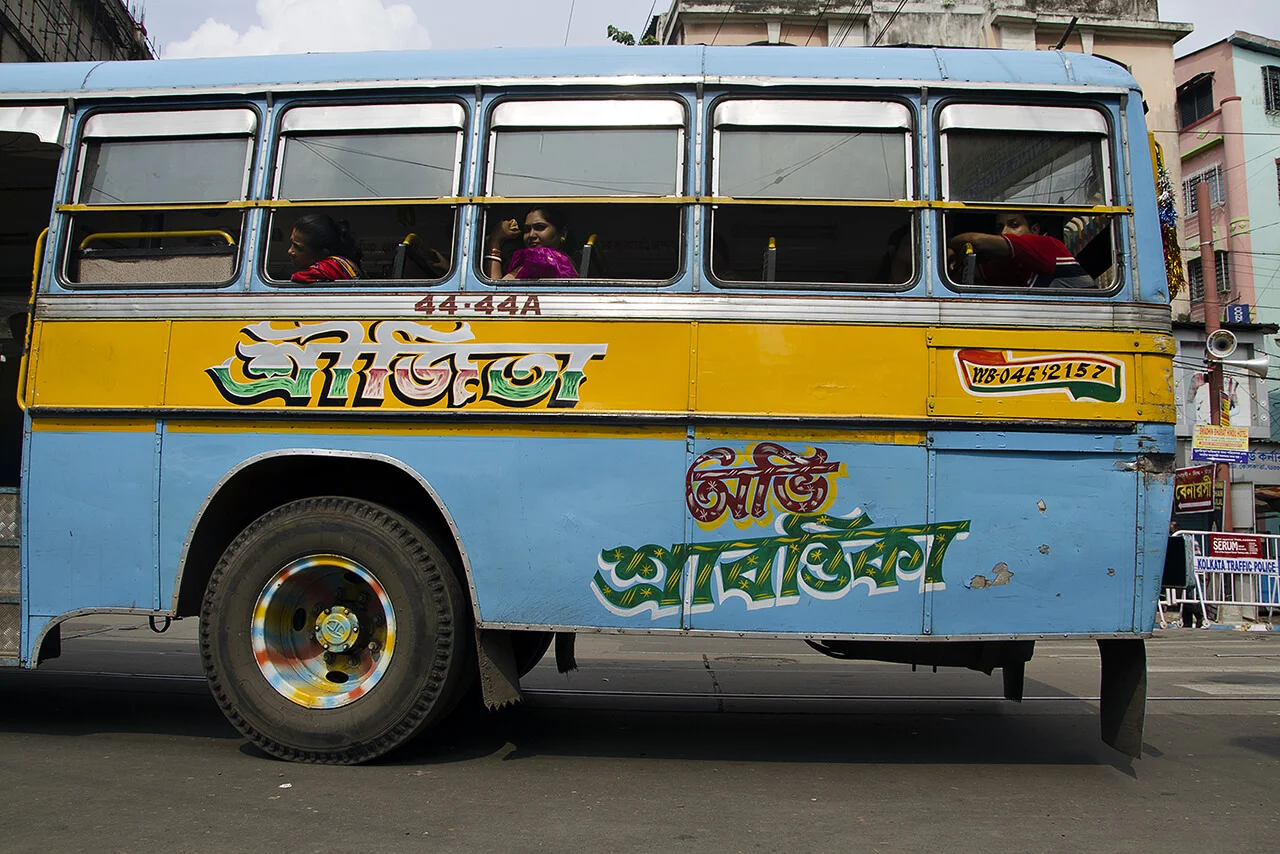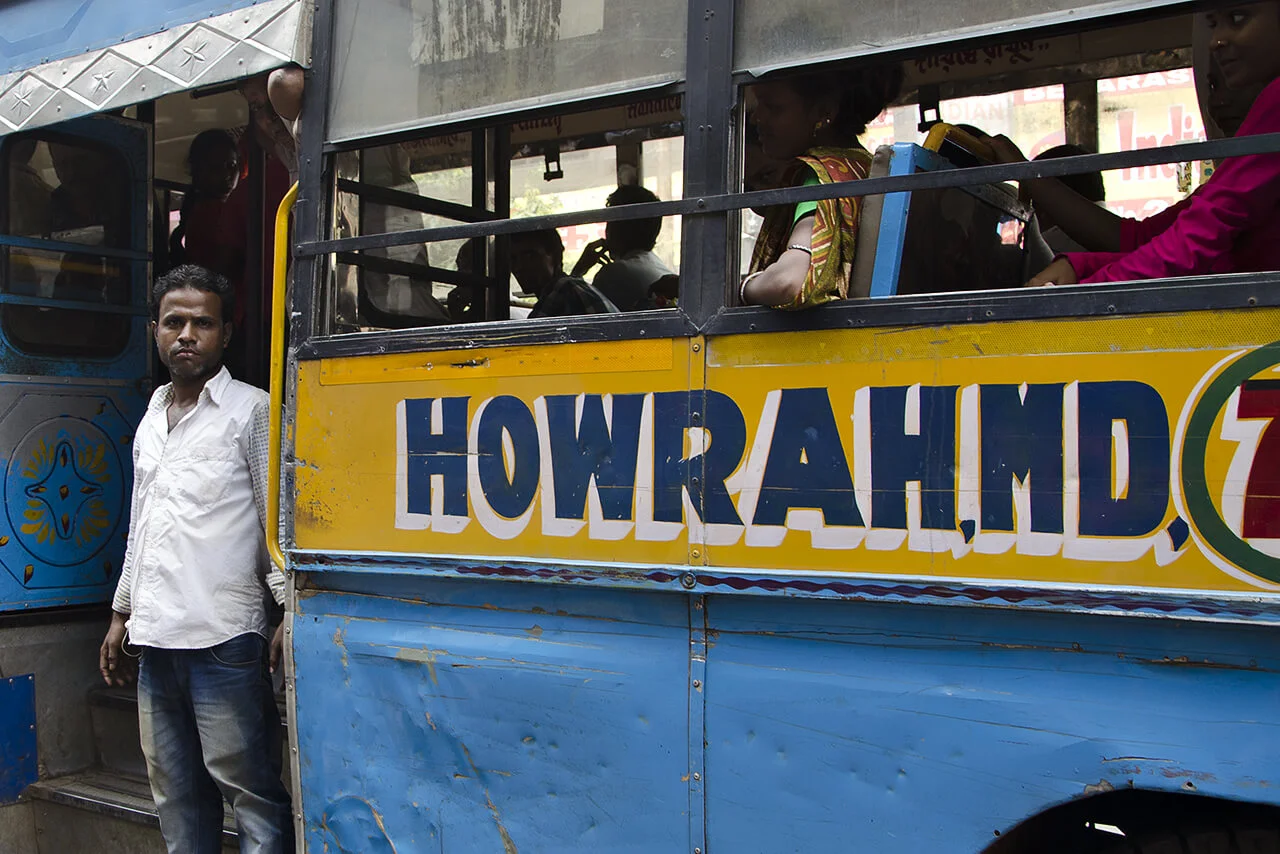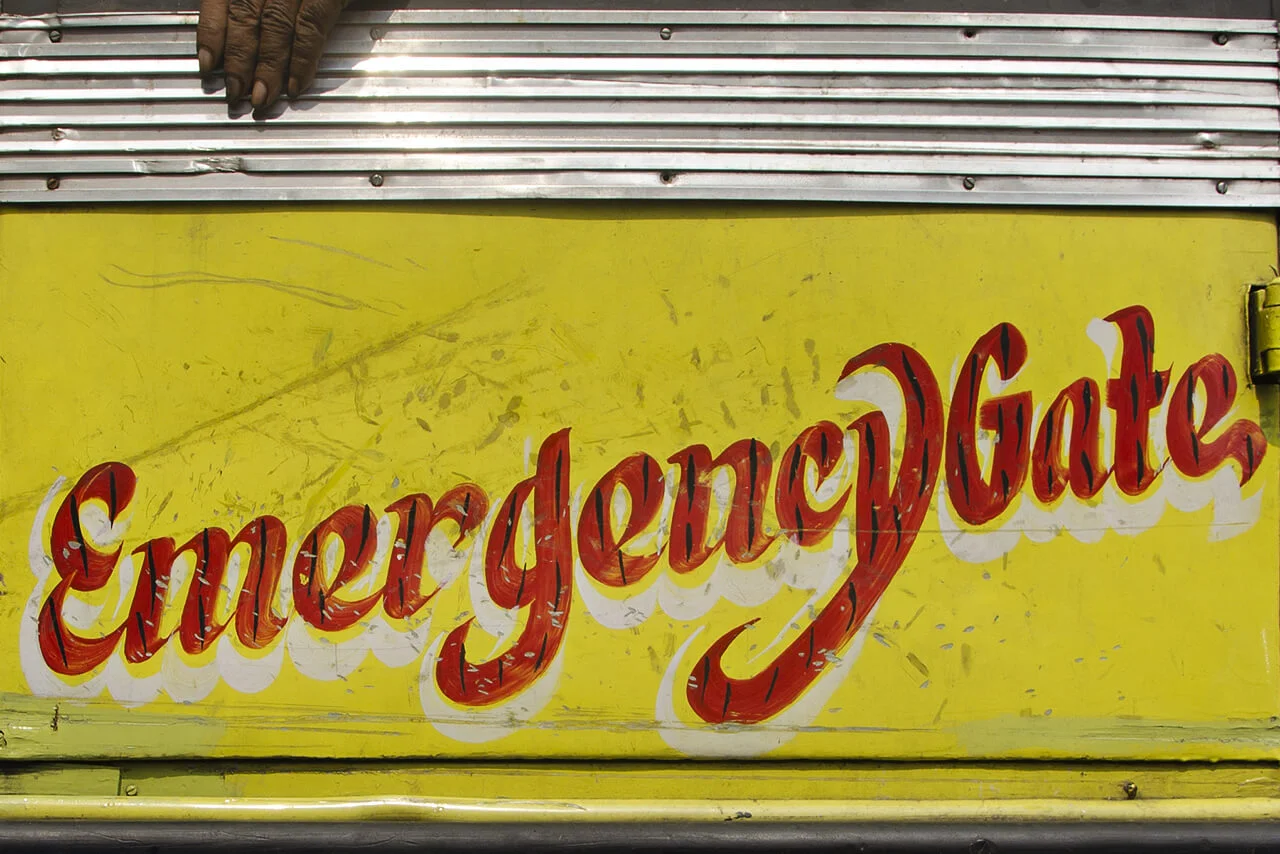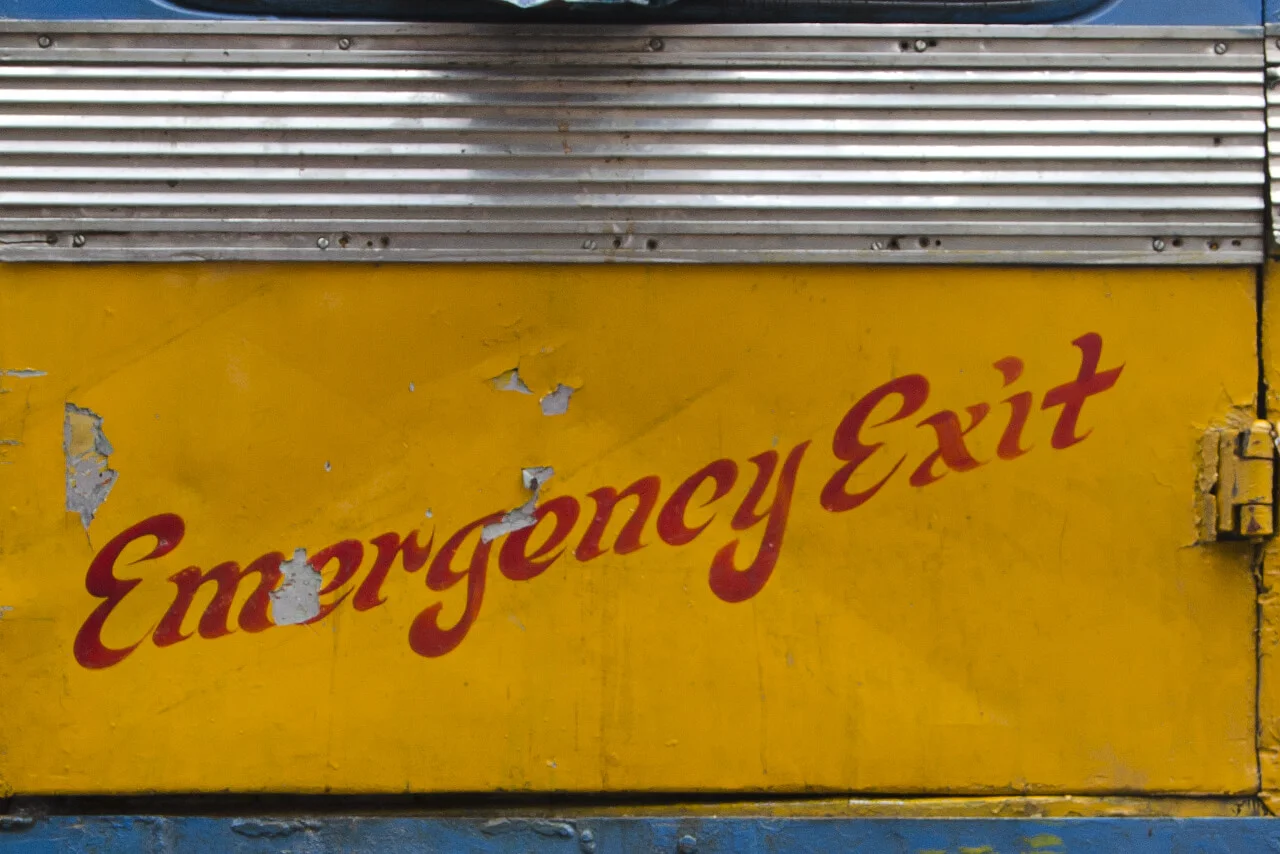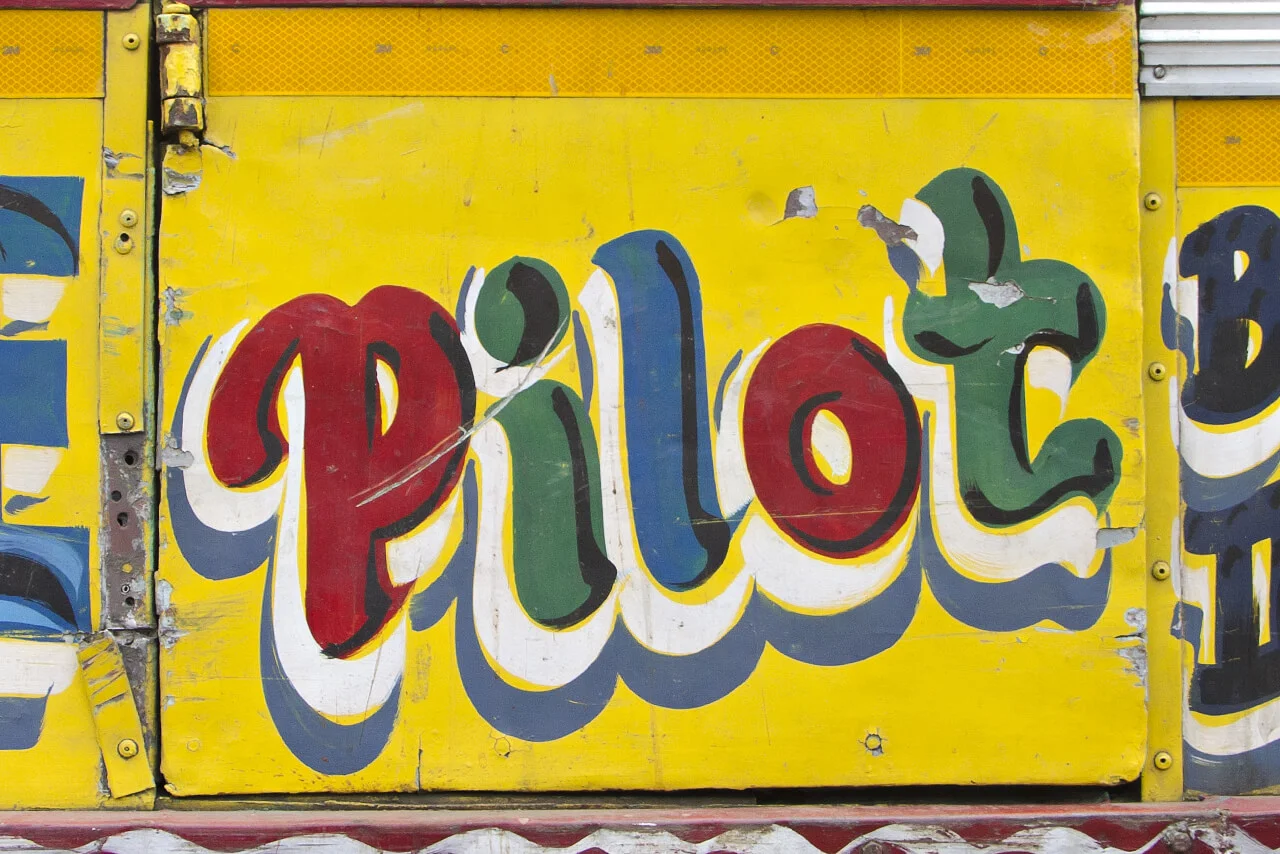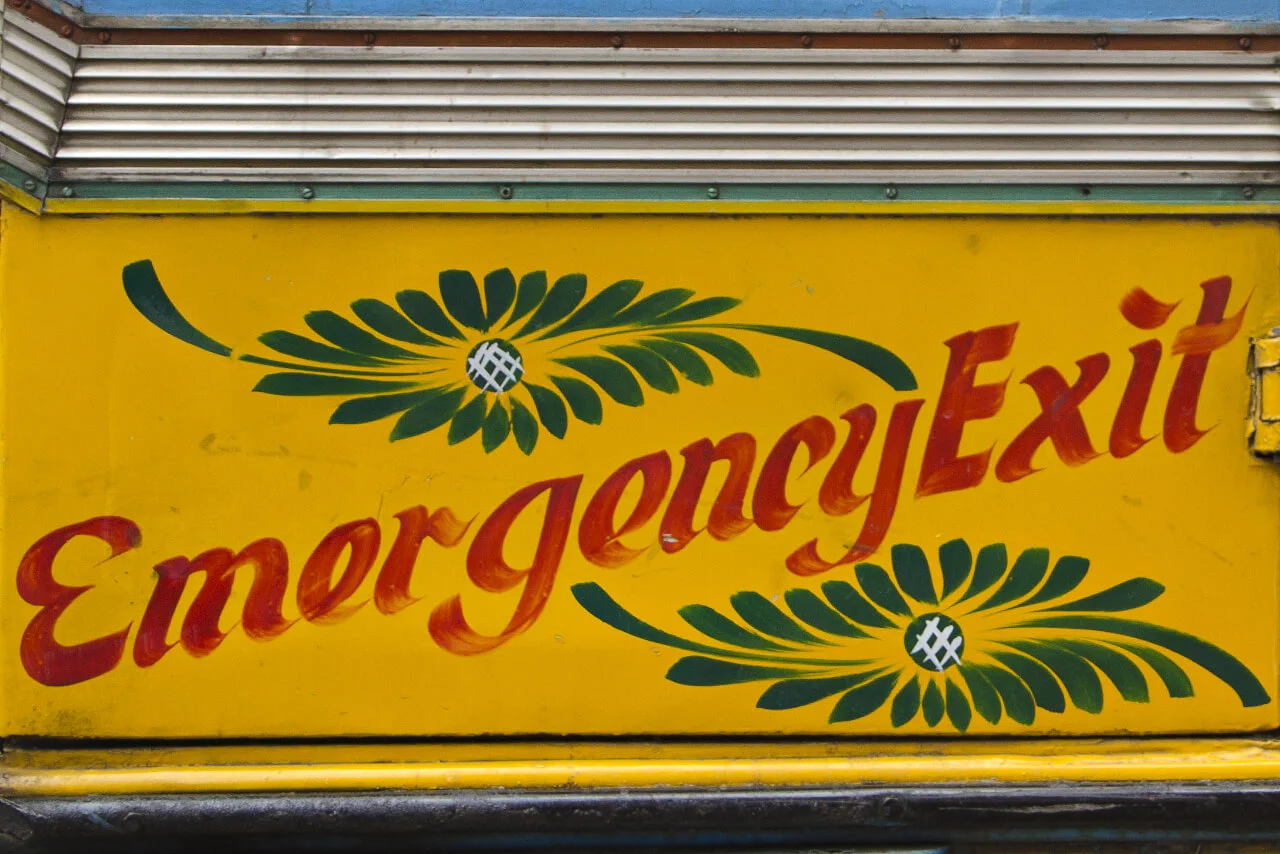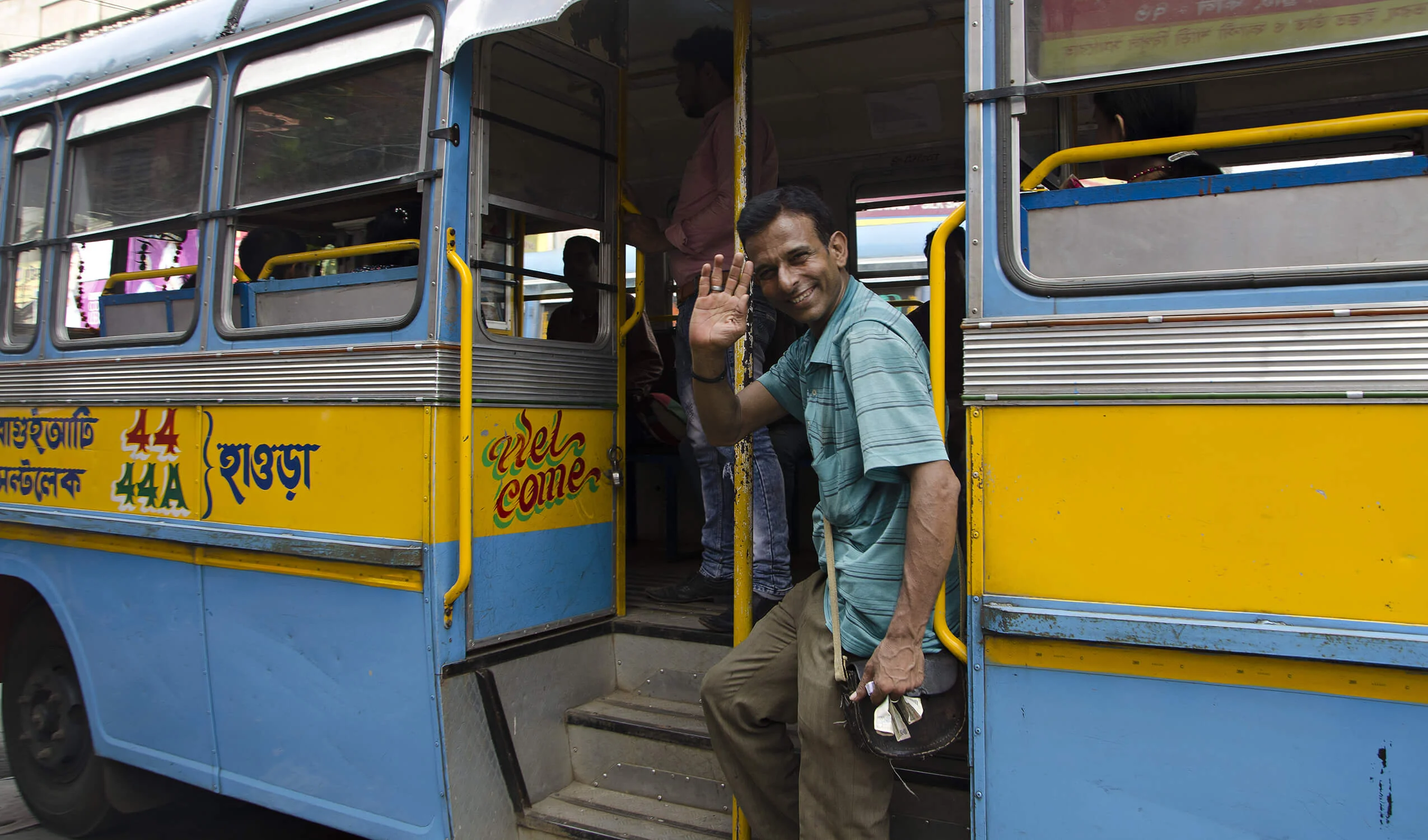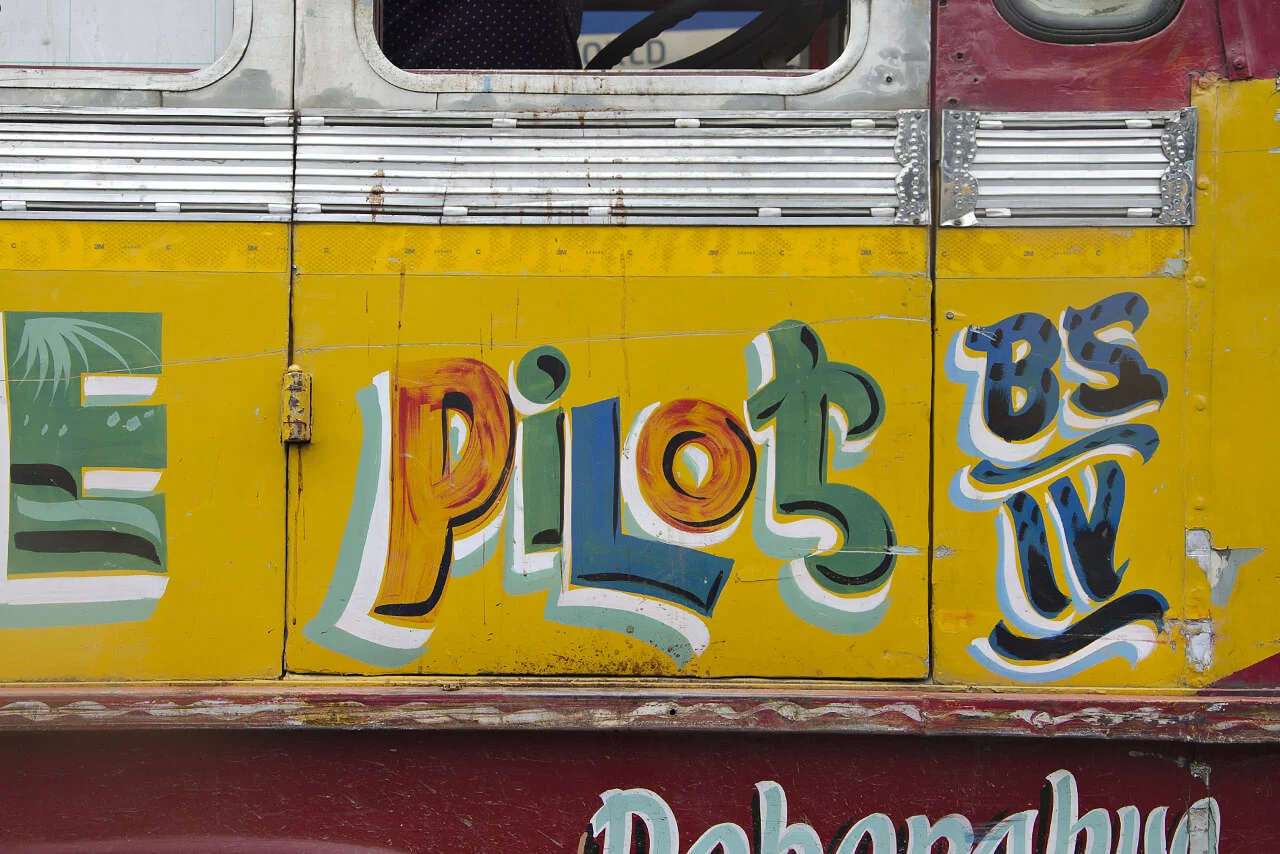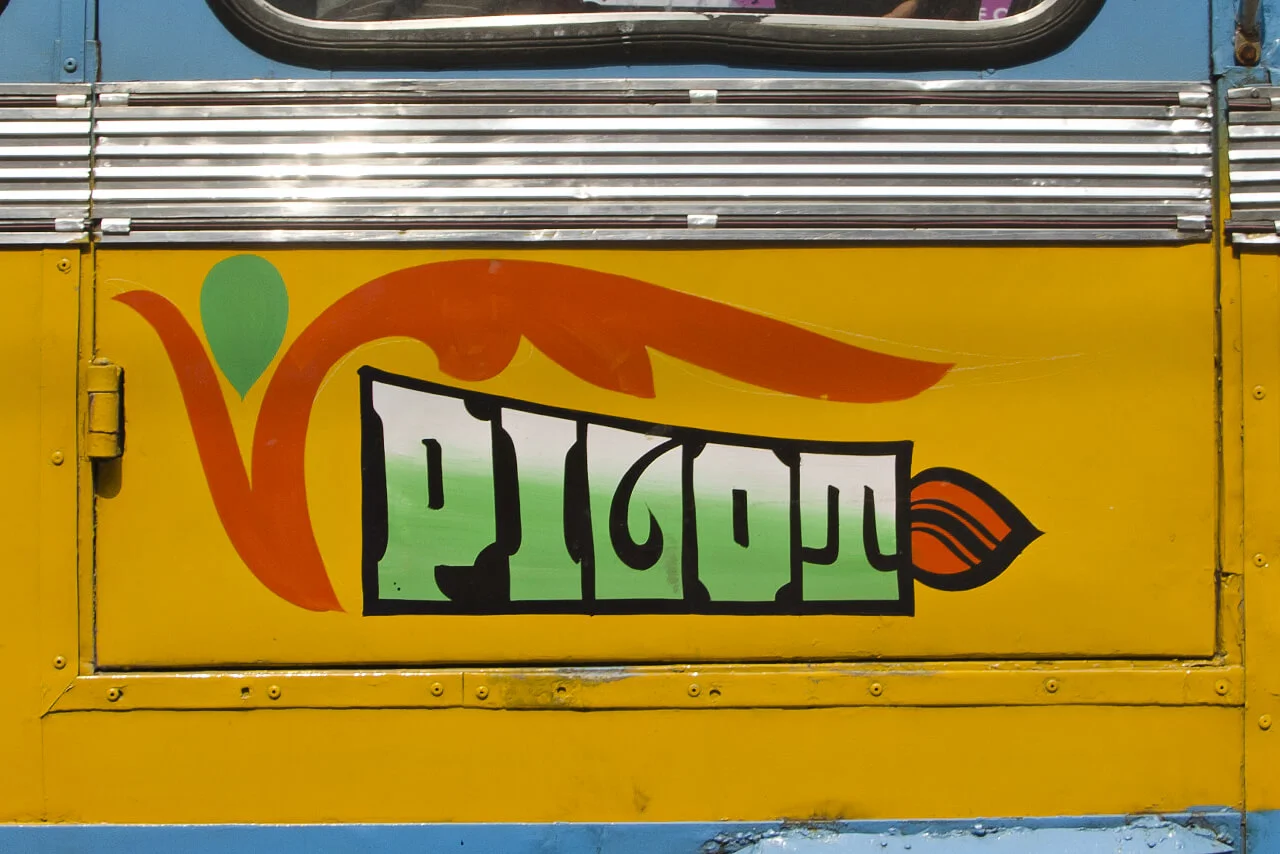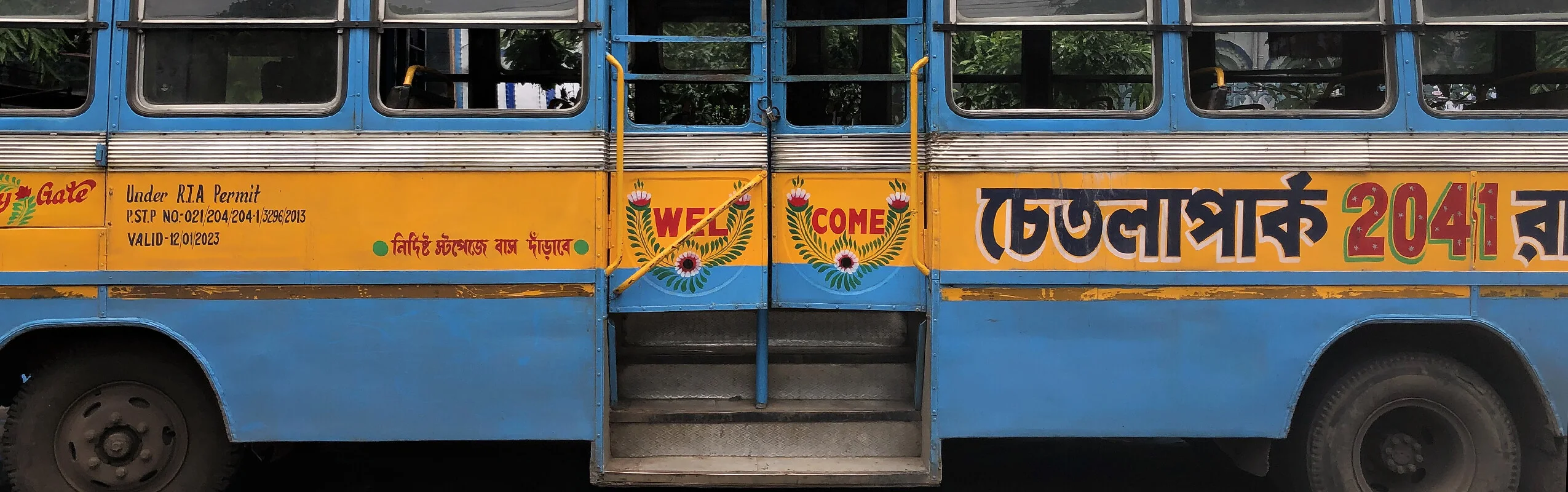
Kolkata’s hand-painted buses
Pilot!
Kolkata seems to be full of pilots. At least if one follows the inscriptions on its public buses. On the driver’s side door, the word“Pilot”  is often painted in bold letters, while the opposite side prominently bears the designation“Emergency Gate.”
No two of these meticulously crafted inscriptions are alike. Each is hand-painted, frequently embellished with floral motifs or other decorative elements. These vivid and highly individual bus letterings are a distinctive feature of the city and contribute to the visual character of the so-called“City of Joy”.
Howrah, Salt Lake, Esplanade…
Alongside the hand-painted destinations of the bus routes, lettering in English and Bengali addresses passengers and passers-by alike: welcoming them (WelCome), urging fellow road users to follow traffic regulations (Obey Traffic Rules), advising caution (Danger), or offering more general affirmations such as India is great.